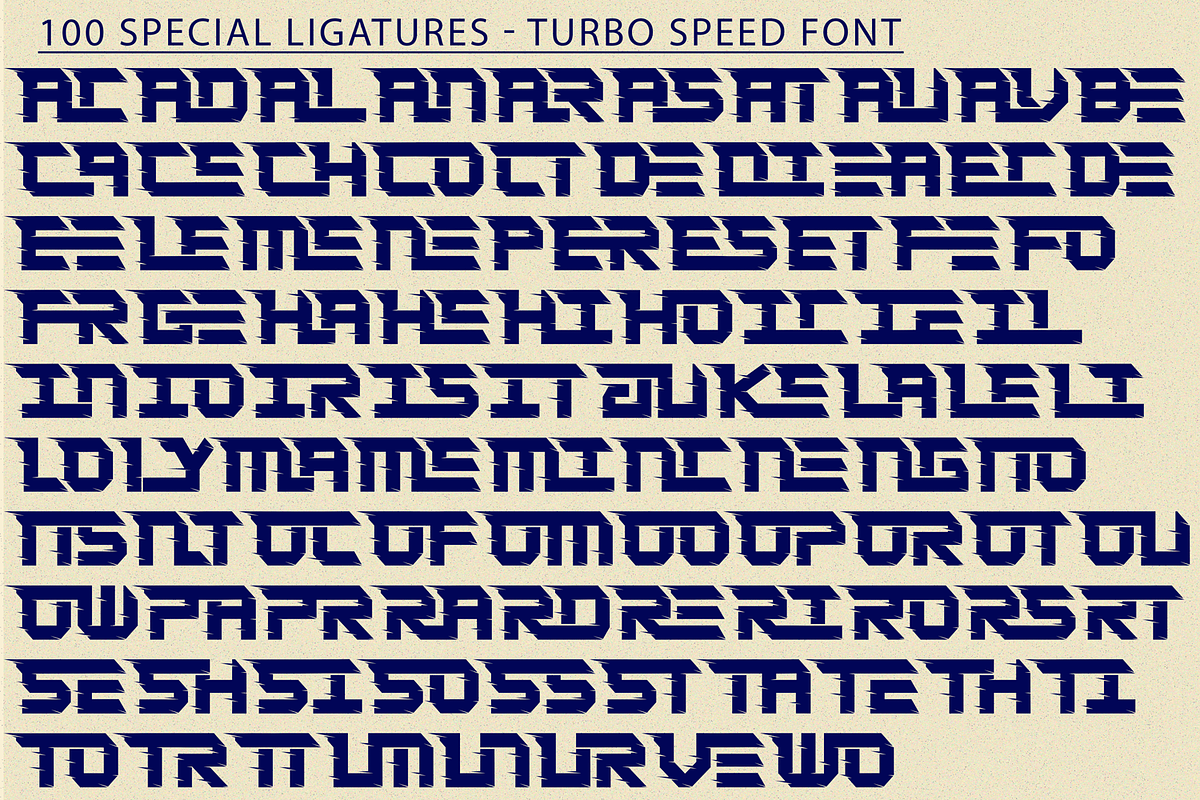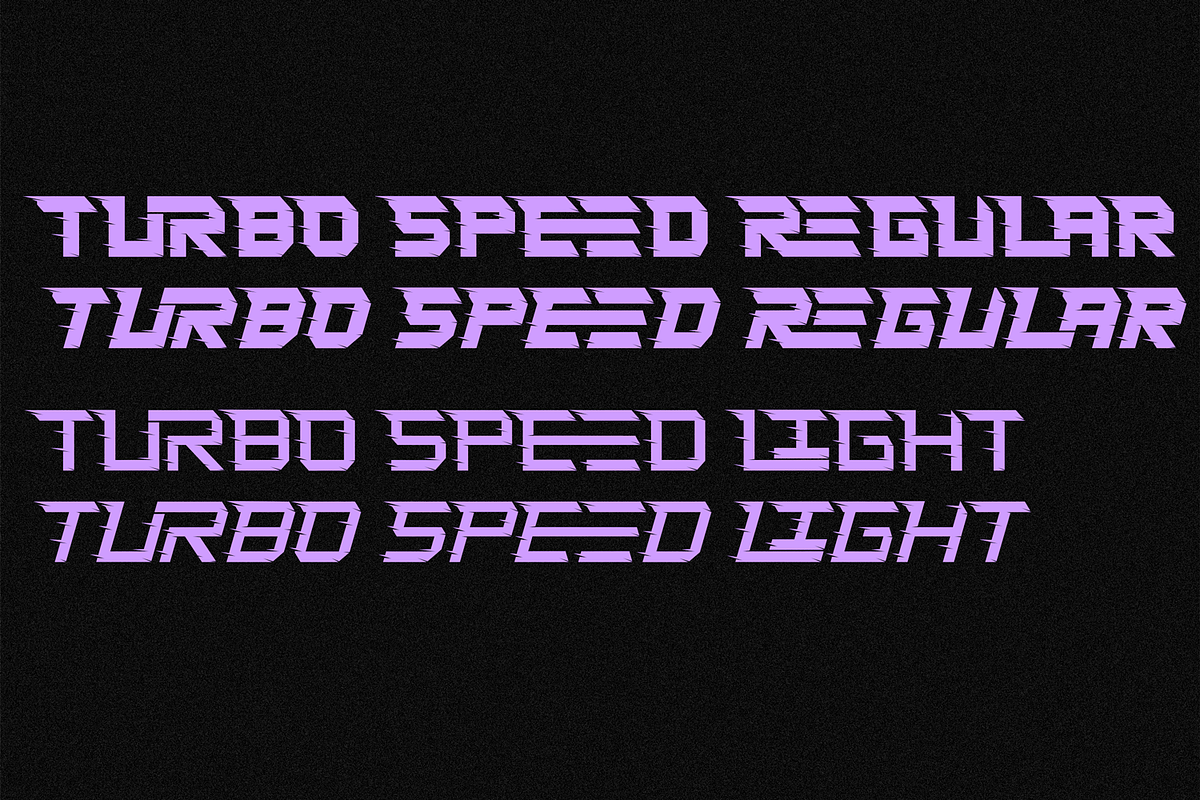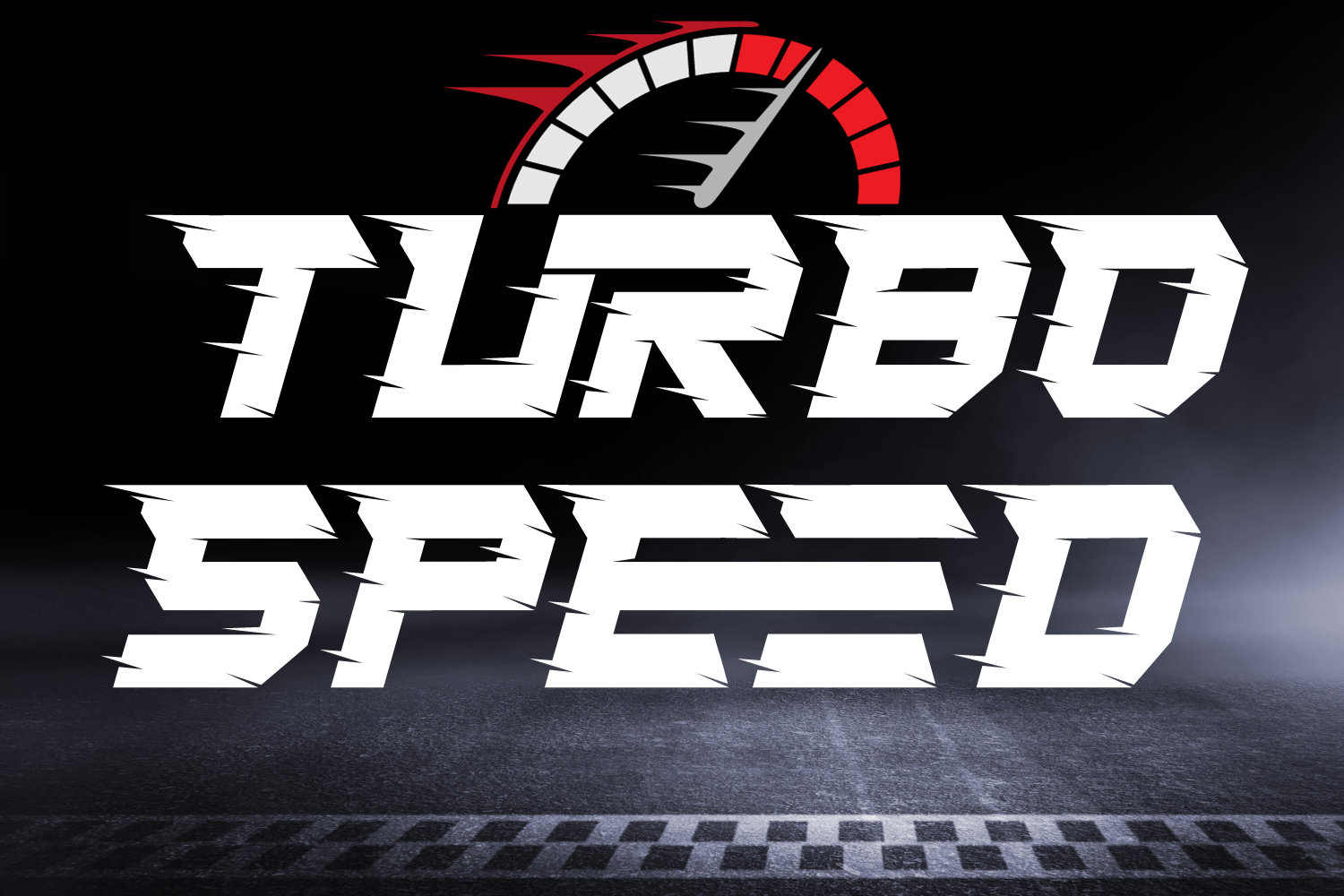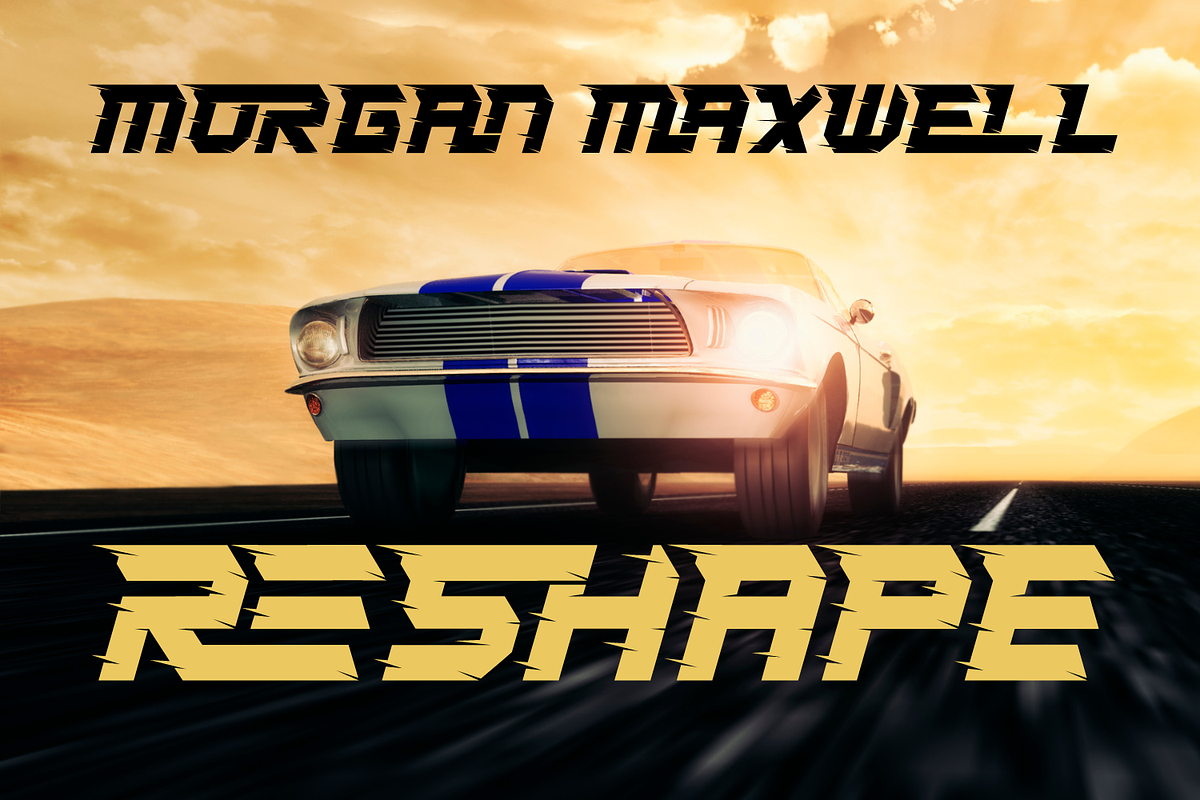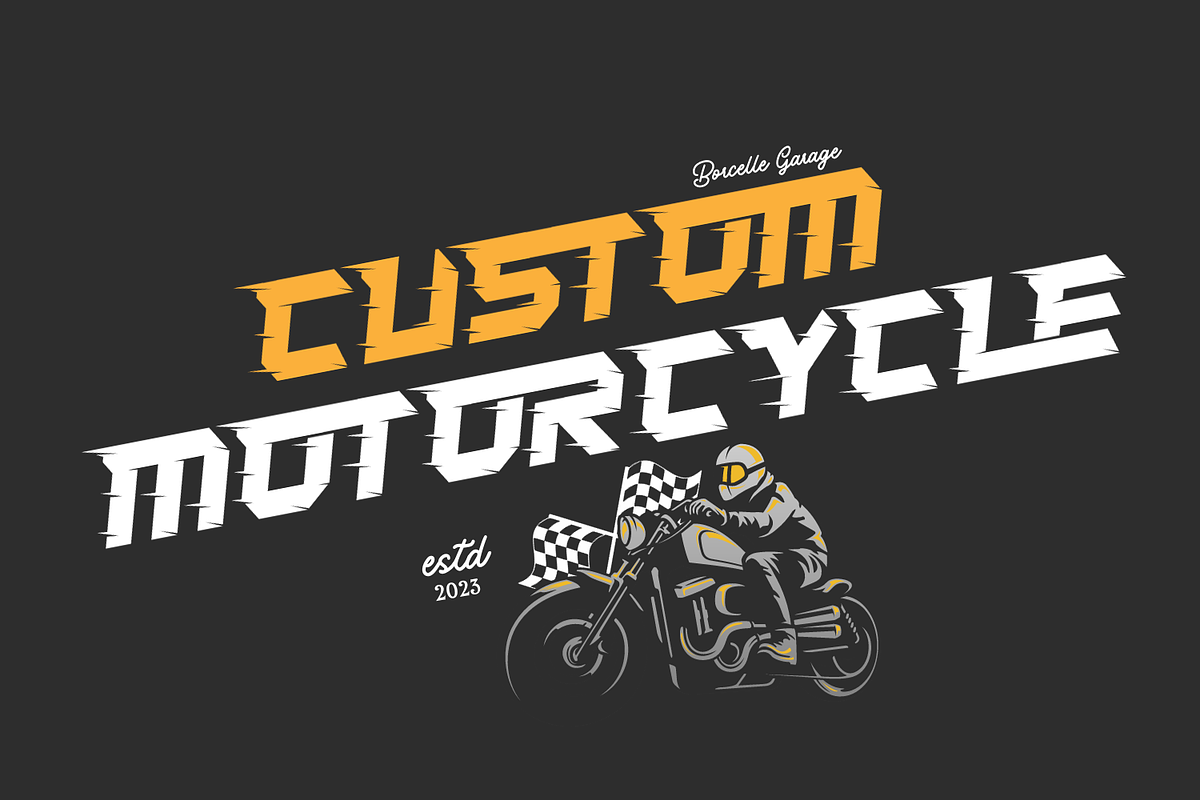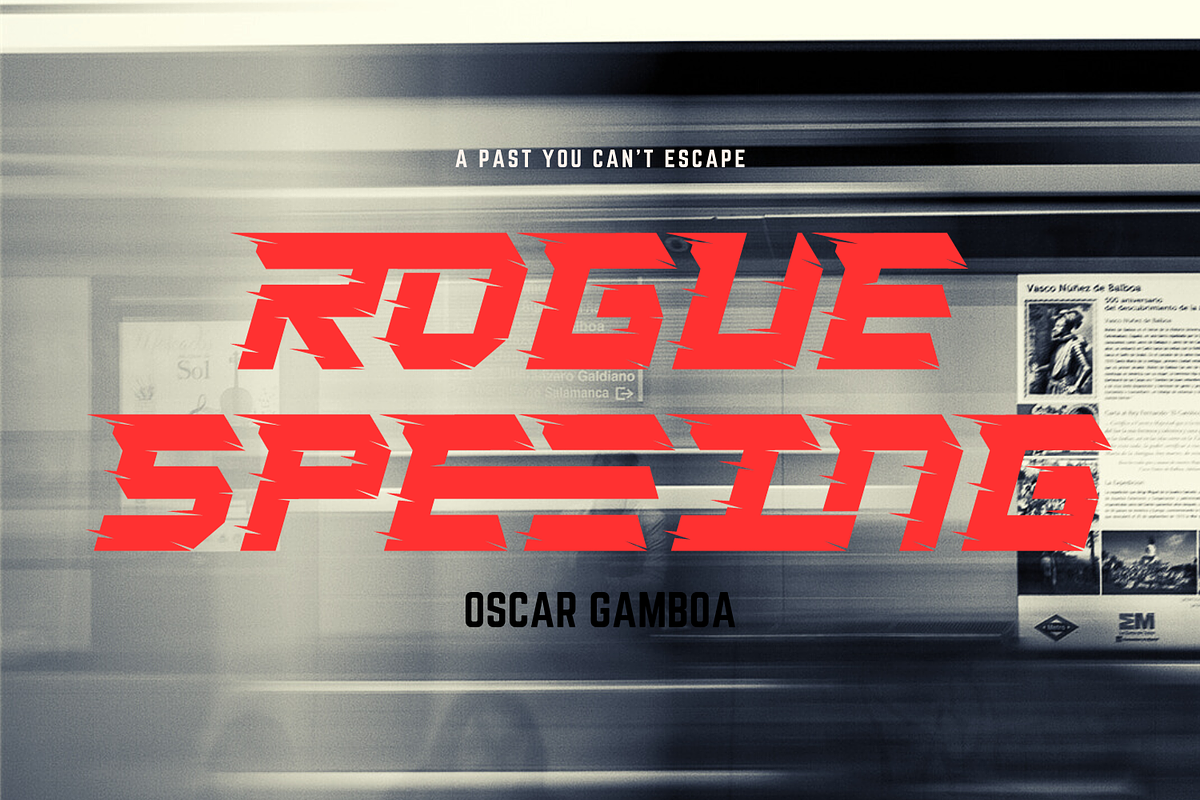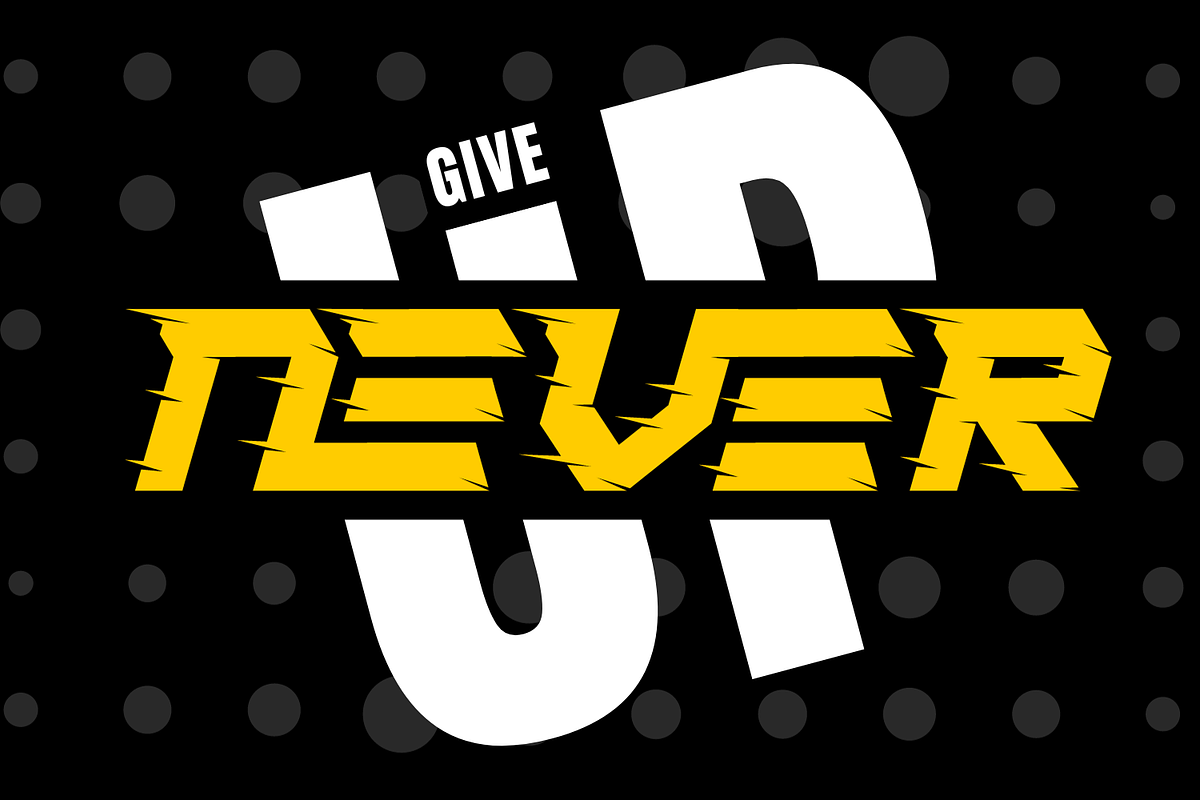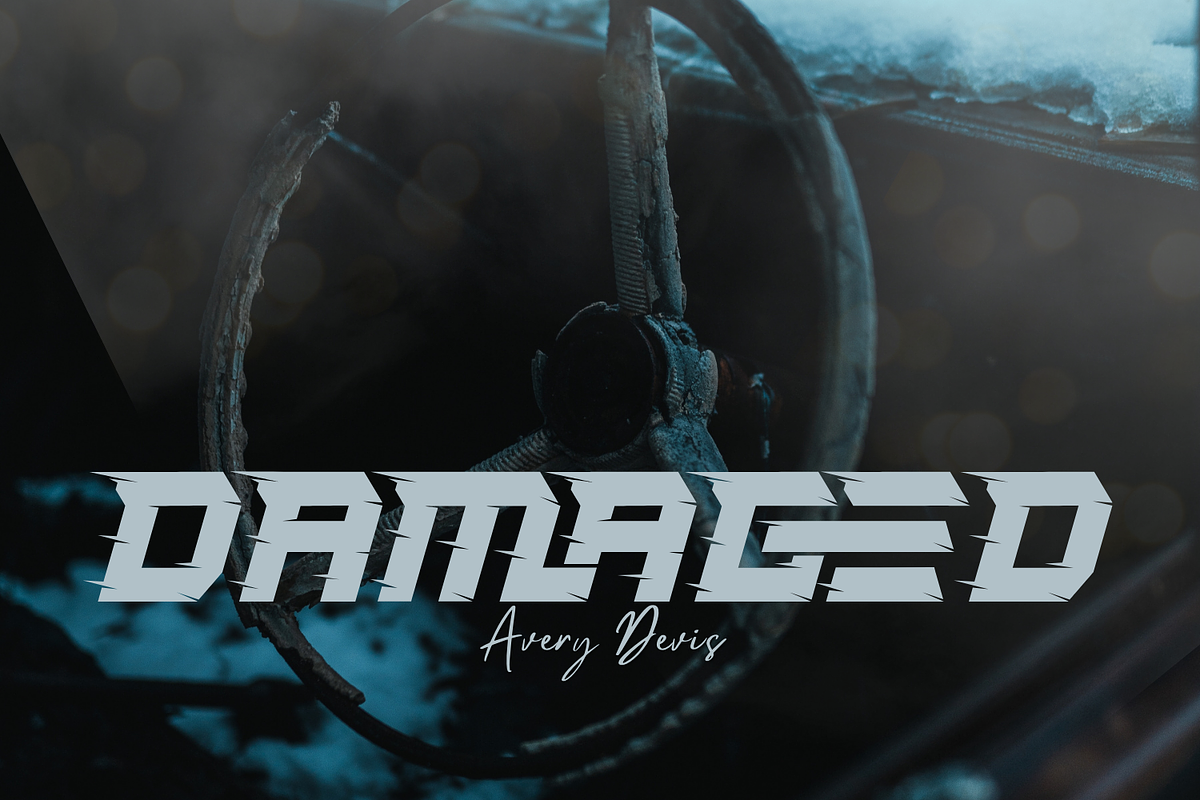
Turbo Speed Font
Turbo Speed Font is Uppercase typeface with speed theme. It's a cool sports font with a fresh style, modern cutouts and dynamic tilt for a quick feel. Ideal for fast auto racing sports, titles, logo, poster, headline, magazine, automotive games, monograms or other modern dynamic designs. The Barnoar have a unique at every angle, the cut creates an effect of strength and speed.
Turbo Speed was built with OpenType features and includes 100 ligatures, alternate, numbers, punctuation, and it also supports other languages.
AC AD AL AN AR AS AT AU AV BE CA CE CH CO CT DE DI EA EC ED EE EL EM EN EP ER ES ET FE FO FR GE HA HE HI HO IE IC IL IN IO IR IS IT JU KE LA LE LI LL LO LY MA ME MI NC ND NE NG NO NT NS OC OF OM ON OO OP OR OT OU OW PA PR RA RD RE RI RO RS RT SE SH SI SO SS ST TA TE TH TI TO TR TT UM UN UR VE WI WO